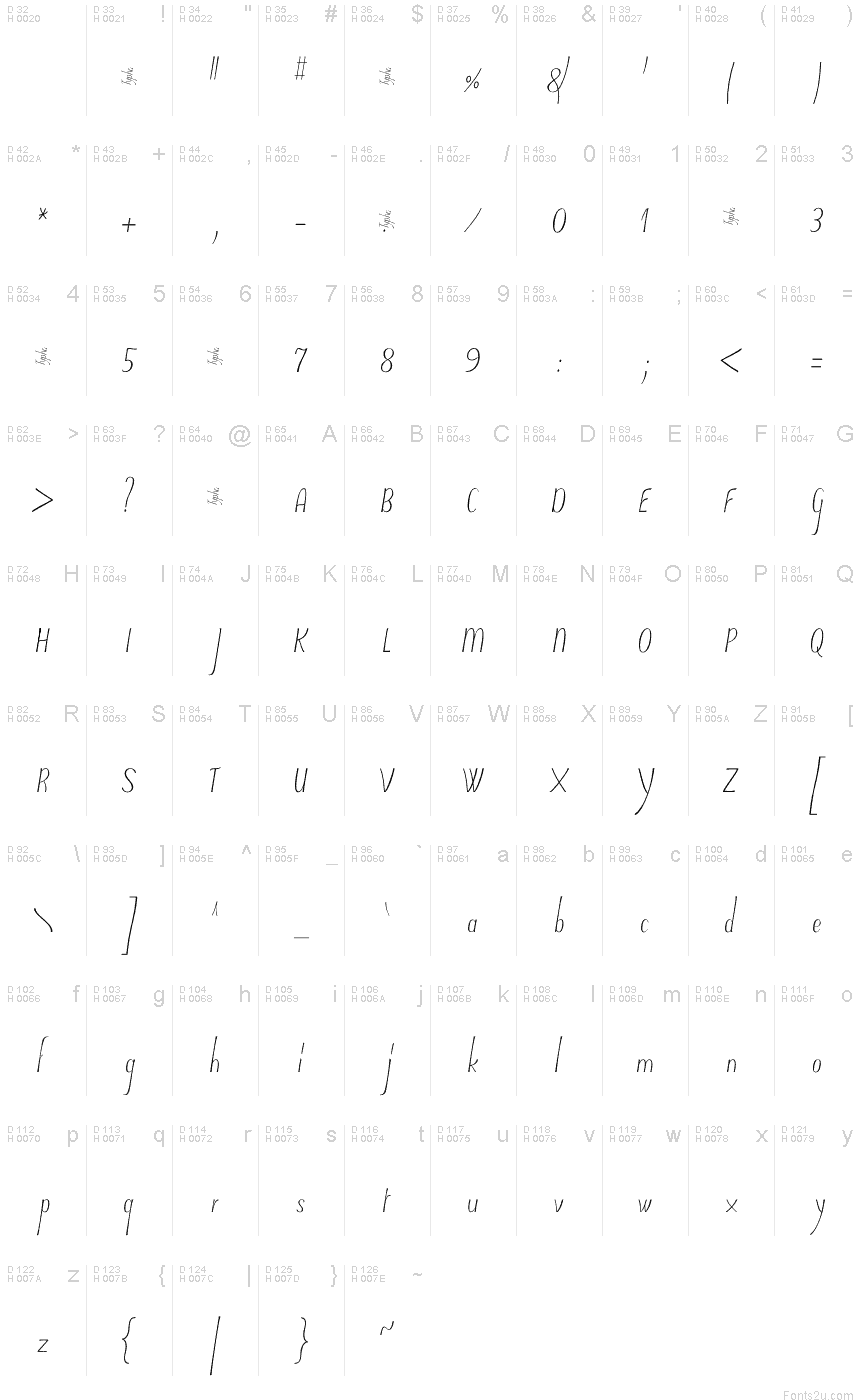
Typha Latifolia Demo-Medium
Typha Latifolia by Jean Boyault of JB Foundry is a free calligraphic font with exceptionally tall, narrow letters and dramatic shifts between hairline strokes and fuller curves. Tall vertical sweeps travel well beyond the main body of the lettering.
Packaging is a natural medium for its poised silhouette, particularly on perfume labels and boutique confectionery, and the same refined drawing suits fashion editorials. For invitations and beauty branding, the extended strokes can become part of a border or emblem, shaping a recognizable product identity.